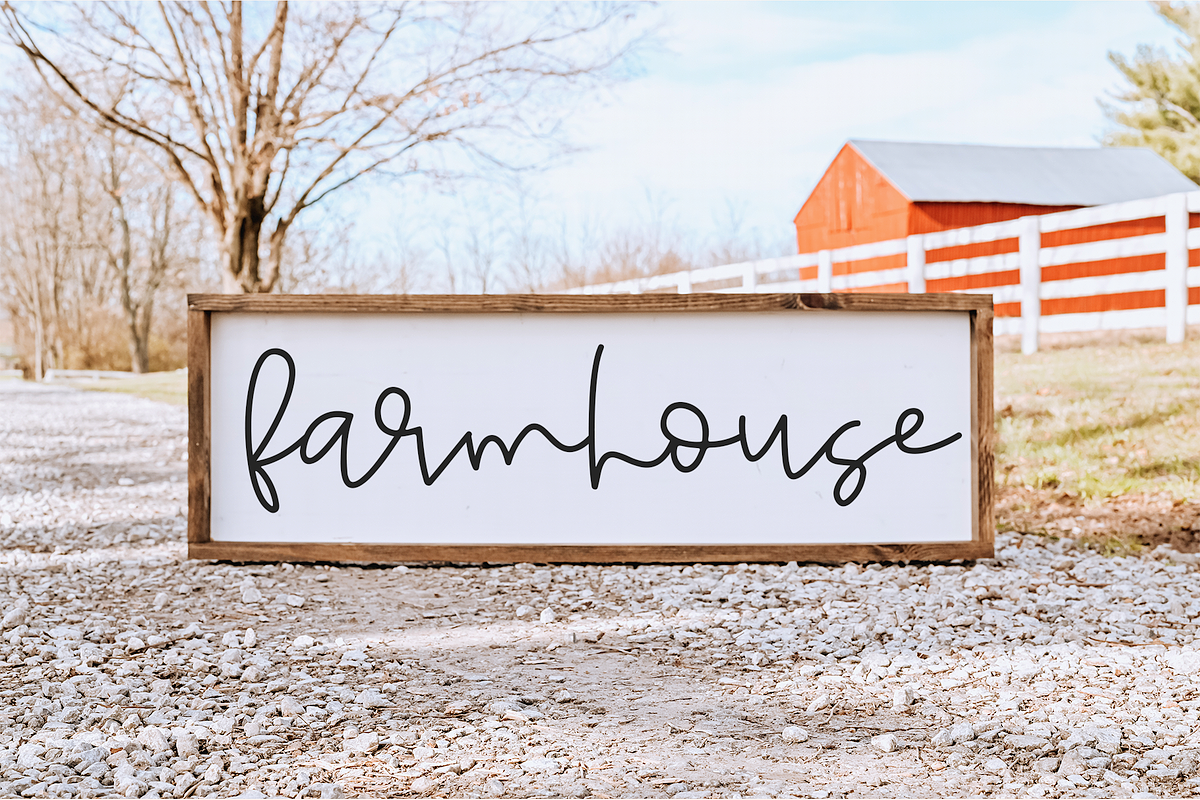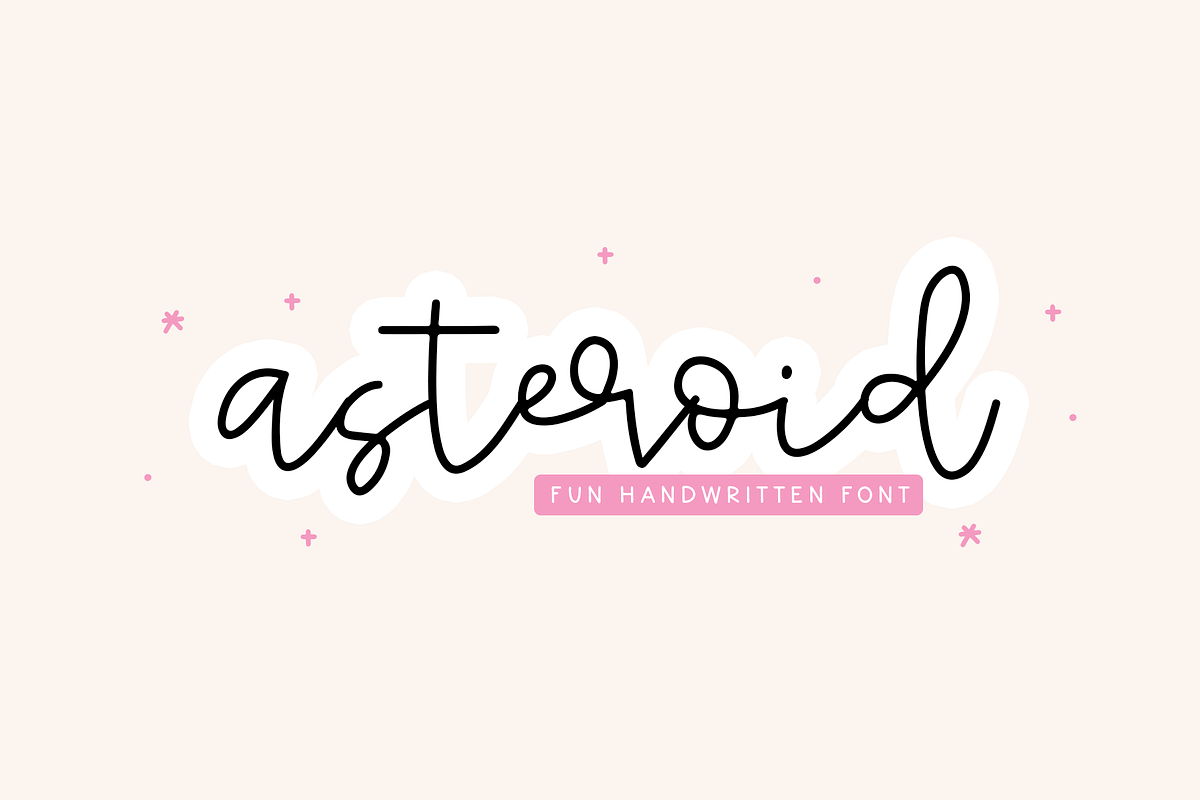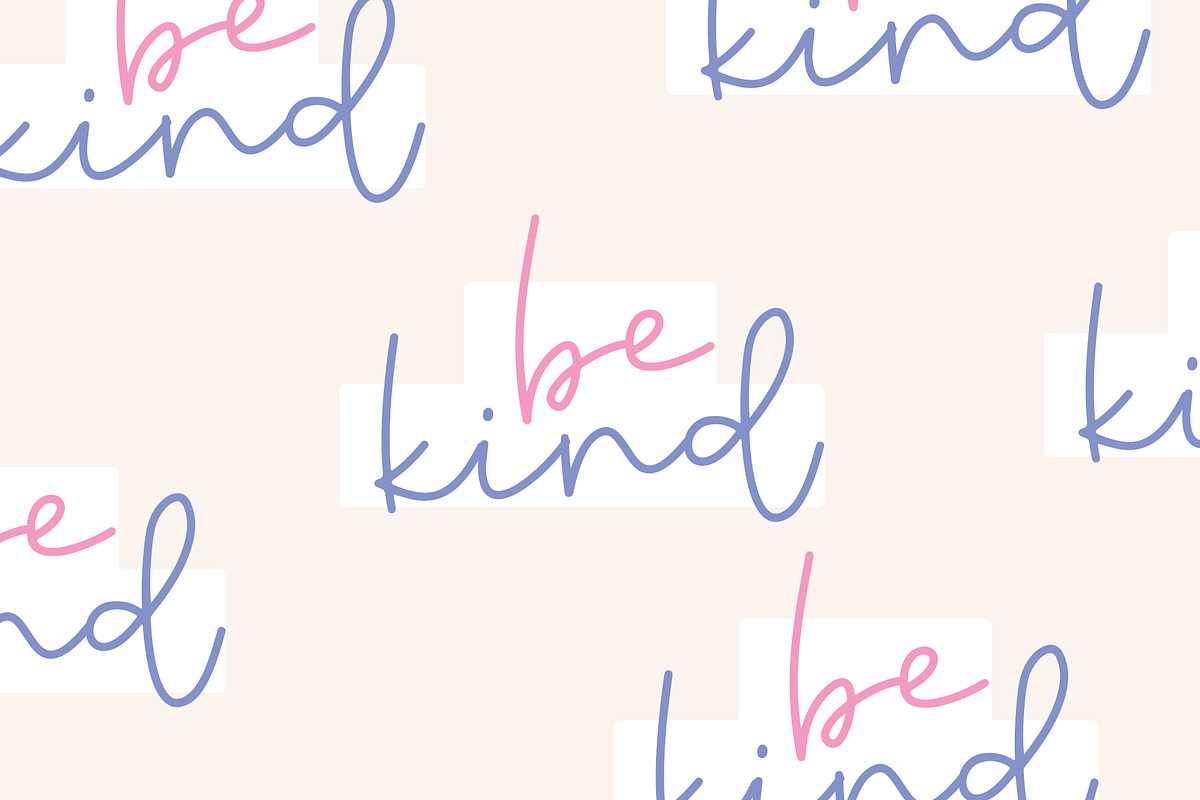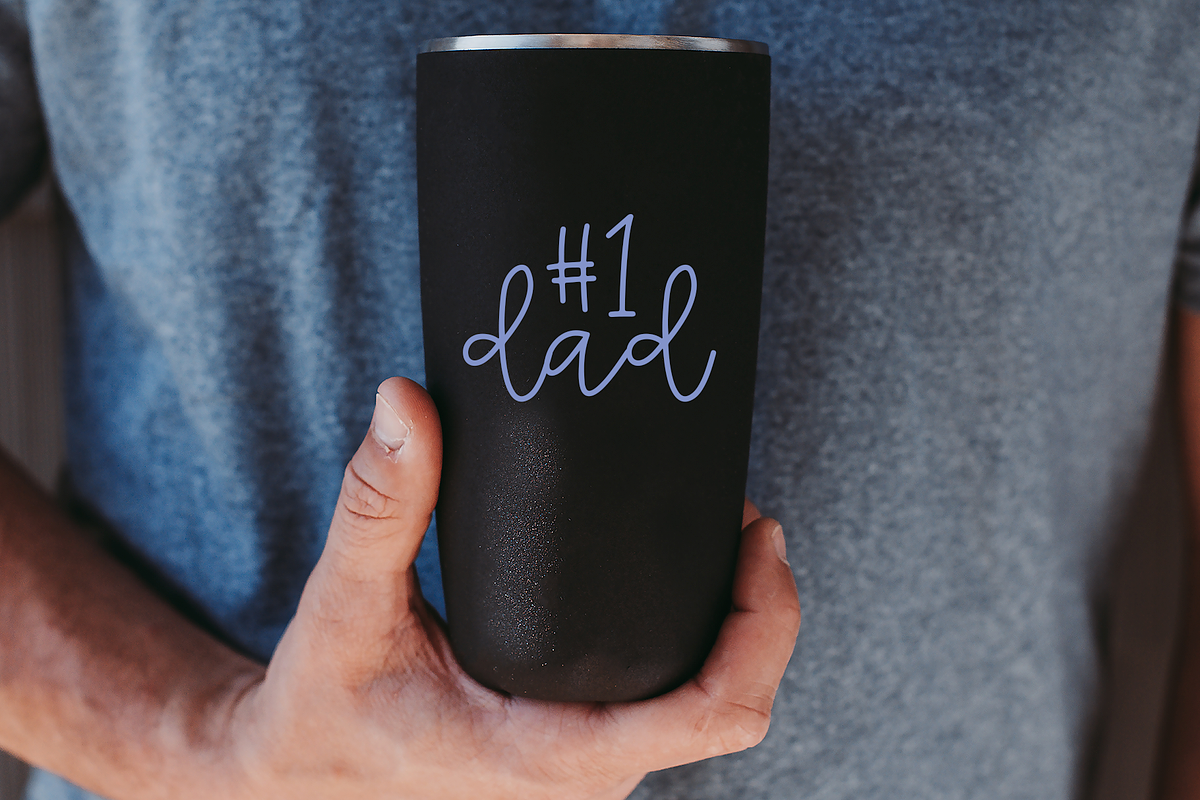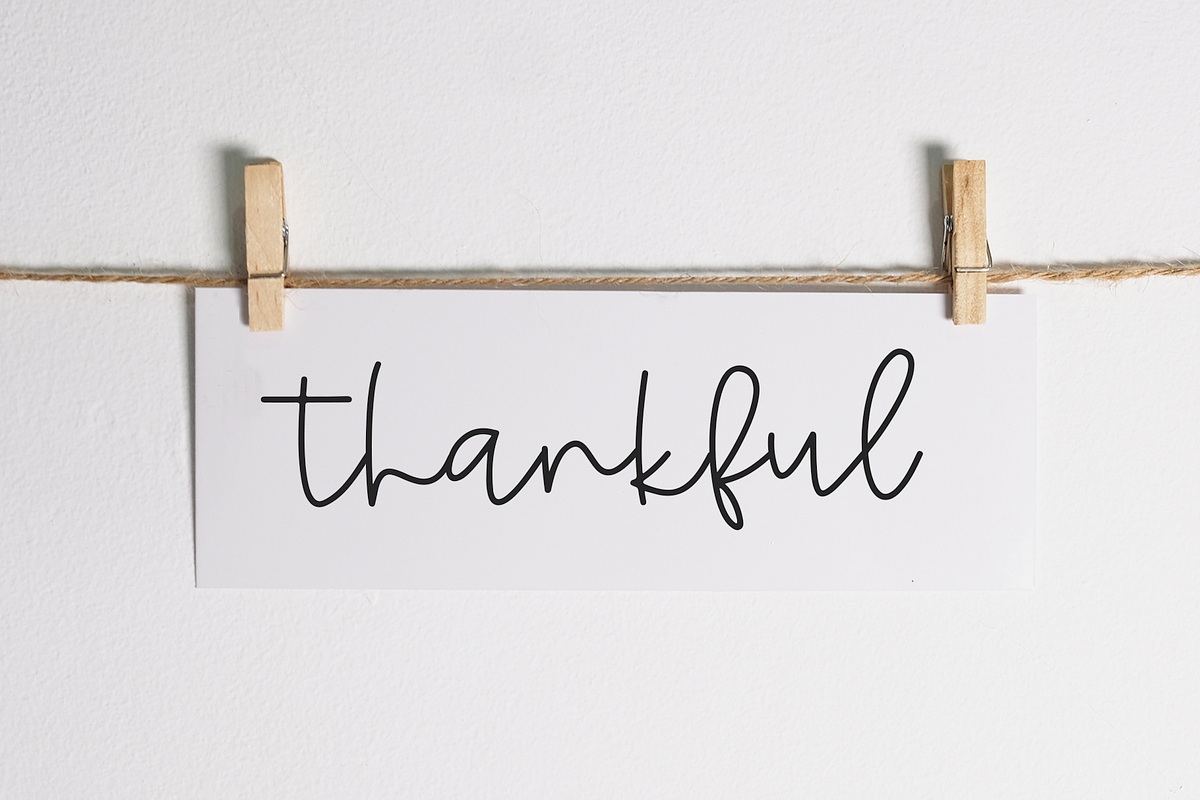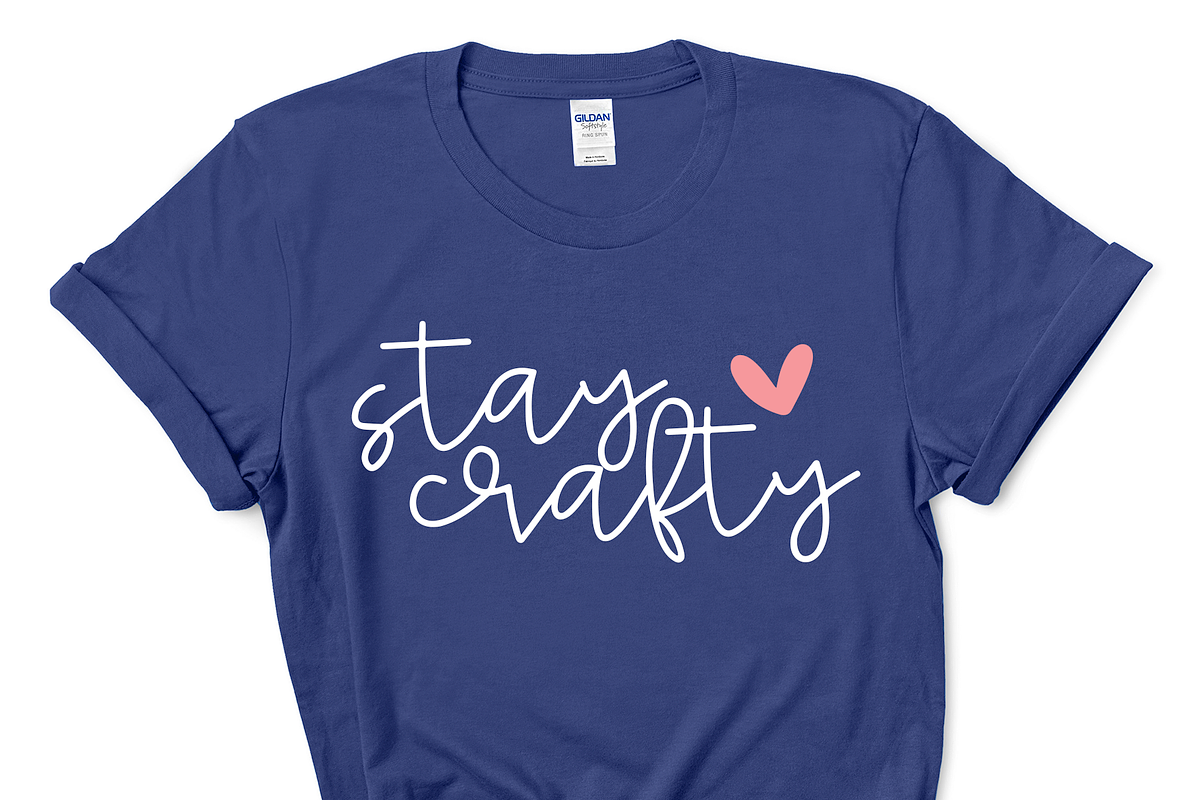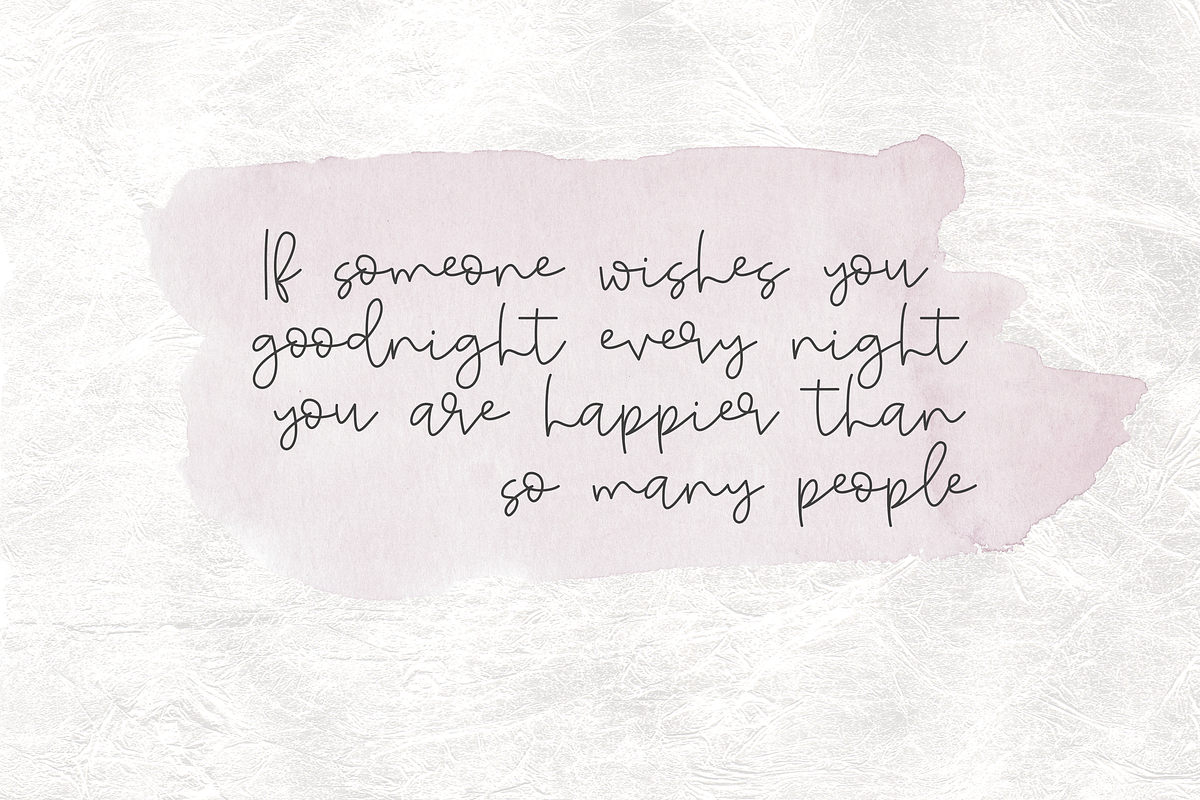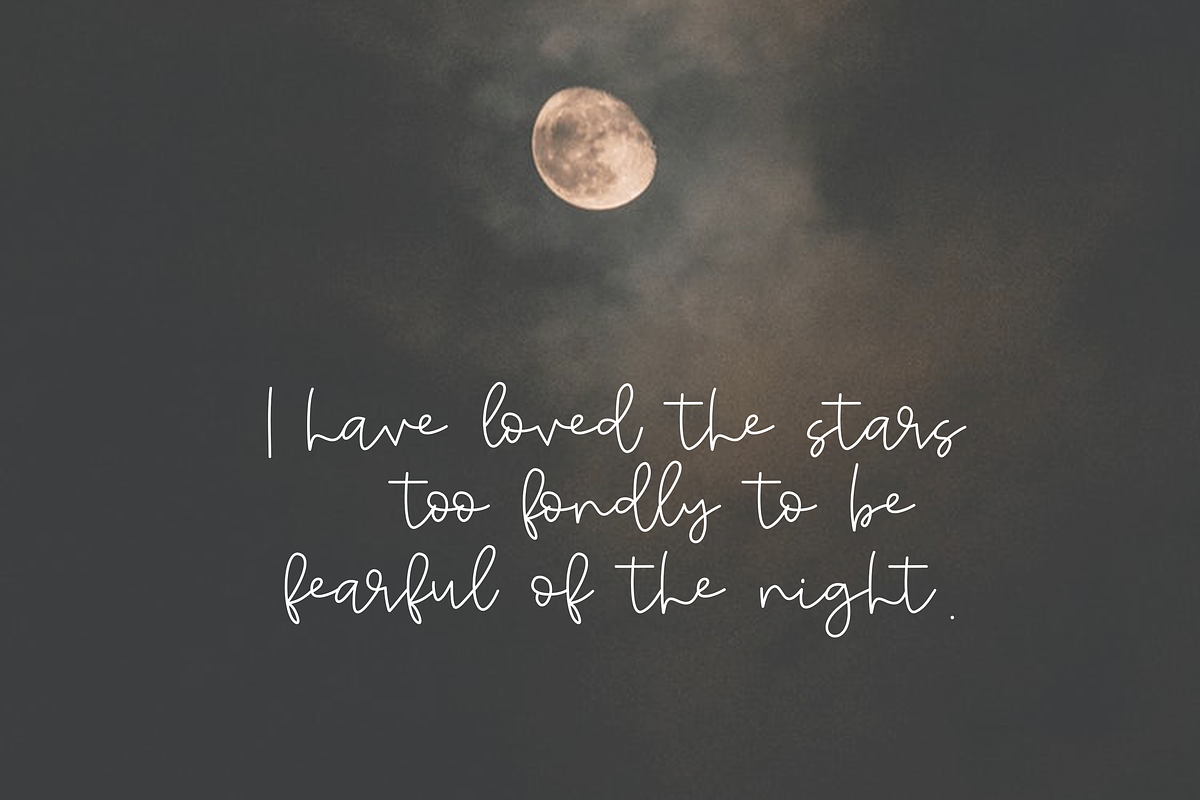
Asteroid | Handwritten Script Font
Asteroidis a handwritten script font. The letters are classy and unique.
This font is perfect for quotes, headings, blogs, logos, invitations and more!
Asteroid | Handwritten Script Font by KA Designs fits naturally into Branding, posters, packaging, typography.